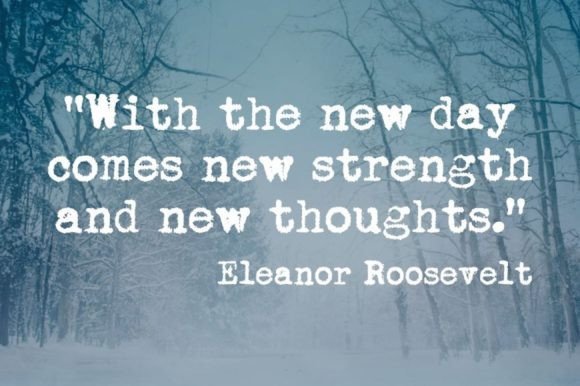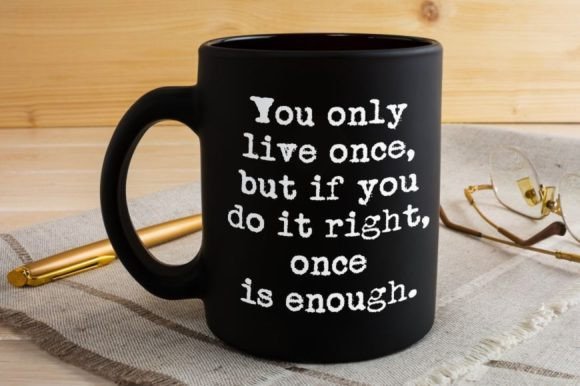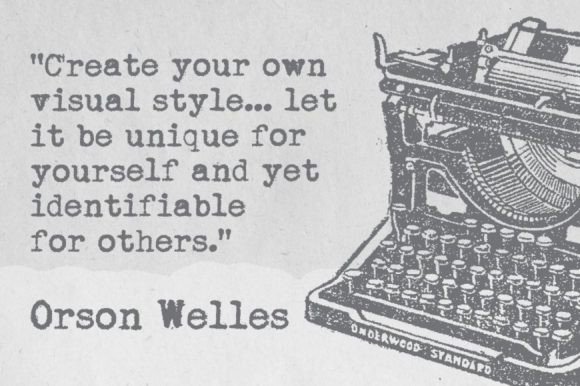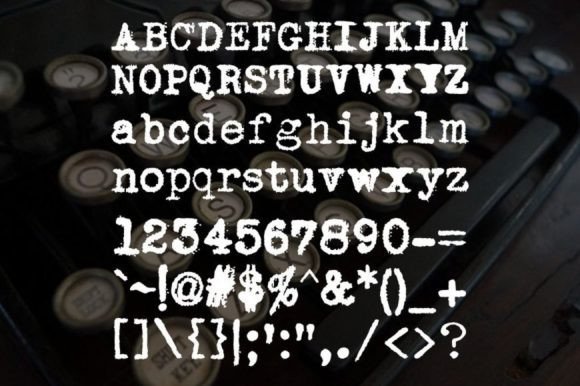
Introduction to Joe Underwood Font
Do you ever find yourself in the midst of a creative project, surrounded by scraps of paper and half-finished ideas, only to be sparked by the tactile feel of a vintage typewriter? For designers and writers alike, there’s something special about the sound and feel of keys clacking away as words flow onto the page. That’s exactly the inspiration behind the Joe Underwood Font, a beautifully crafted digital font inspired by the iconic Underwood typewriter.
As a design resource, the Joe Underwood Font offers a unique blend of nostalgia and functionality, perfect for adding a touch of elegance to your next creative project. With its high-quality, transparent background, you can easily place it over your designs without worrying about any unwanted texture or grain. And the best part? This font is available for free download, making it an accessible addition to your design arsenal.
For designers looking to add a touch of sophistication to their work, the Joe Underwood Font is a valuable resource that’s sure to impress. Whether you’re working on a branding project or simply want to add some visual interest to your website, this font is sure to deliver. So why not give it a try and see how the Joe Underwood Font can elevate your next creative project?
Key Features of Joe Underwood Font
- High-quality, professional font suitable for various creative projects, including logos, branding, and print materials.
- Comes with a transparent background, allowing for easy integration with other design elements and backgrounds.
- Features a unique, elegant design that sets it apart from other fonts, making it a great choice for designers looking to add a touch of sophistication to their work.
- Size: The font includes a range of weights and styles, from light to bold, allowing designers to customize their font to suit their specific needs.
Honest Review: Joe Underwood Font
I recently stumbled upon the Joe Underwood Font, and I must say it’s been a game-changer for my creative projects. This free download has been a valuable design resource, offering high-quality typography that elevates my designs to the next level.
What works well is the transparent background, which makes it incredibly easy to use in various design applications. The font is also highly customizable, allowing me to experiment with different styles and layouts without any hassle. ✨
- High-quality typography that’s perfect for creative projects
- Transparent background for easy use in design applications
- Highly customizable, making it ideal for experimenting with different styles
Overall, I’m thoroughly impressed with the Joe Underwood Font. It’s a fantastic design resource that’s perfect for personal projects, and I would highly recommend it to fellow designers. With its high-quality typography and transparent background, it’s a must-have in any design library.
Tips for Getting the Most Out of the Joe Underwood Font
Use the font in conjunction with other design elements to create a cohesive and visually appealing design. Experiment with different font sizes and colors to add depth and interest to your project.
The Joe Underwood Font is ideal for graphic designers, artists, and anyone looking for a unique and high-quality font for their creative project. It is perfect for use in logos, posters, business cards, and other design materials.